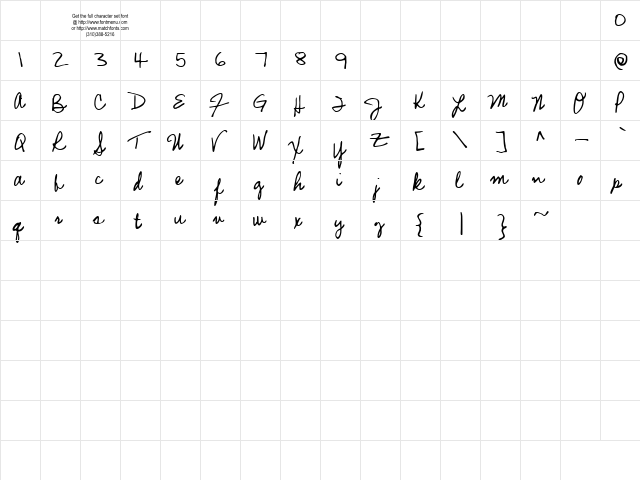
Mariette Tryout Regular
Design Context for Mariette Tryout Typeface
Mariette Tryout takes a measured approach to typography — its balanced proportions and neutral character make it a reliable workhorse for both digital and print work.